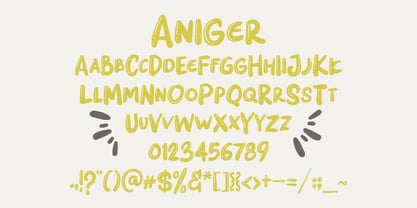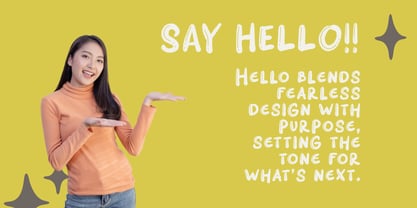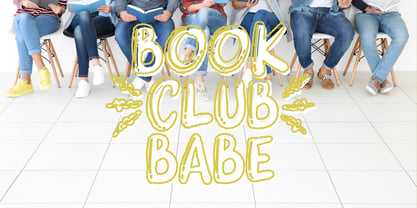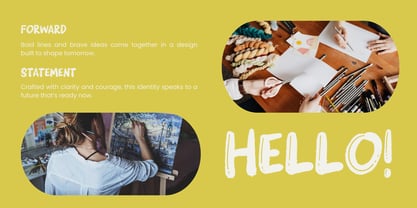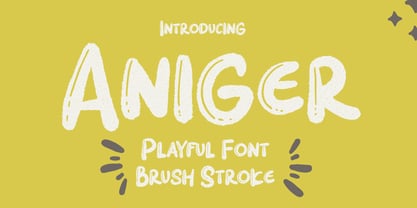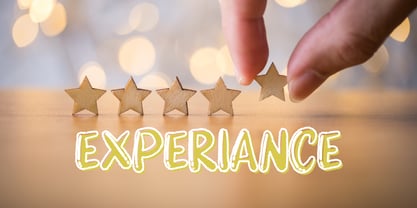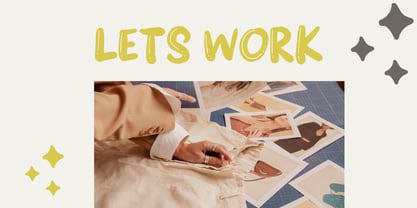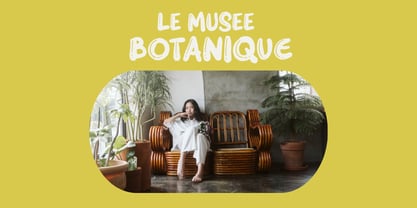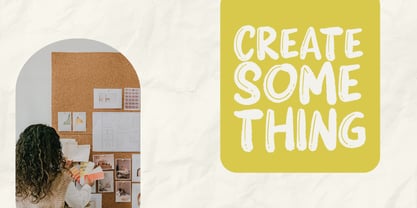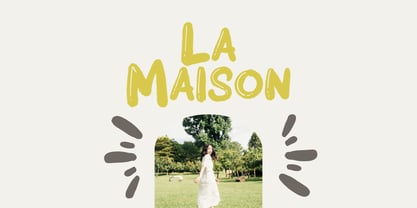
Aniger
by Gatype
The Aniger Font Family was designed by khaidir and published by Gatype. Aniger contains 1 styles. More about this family
Aniger – Playful Brush Stroke Font
Aniger is a playful brush font perfect for modern, trendy designs. Whether you're working on social media content, fun branding, product packaging, apparel, or event posters — this font adds an energetic and handcrafted feel to your layout.
With expressive brush strokes and a casual vibe, Aniger makes your design stand out while keeping things fresh and stylish.
Designers: khaidir
Foundry: Gatype